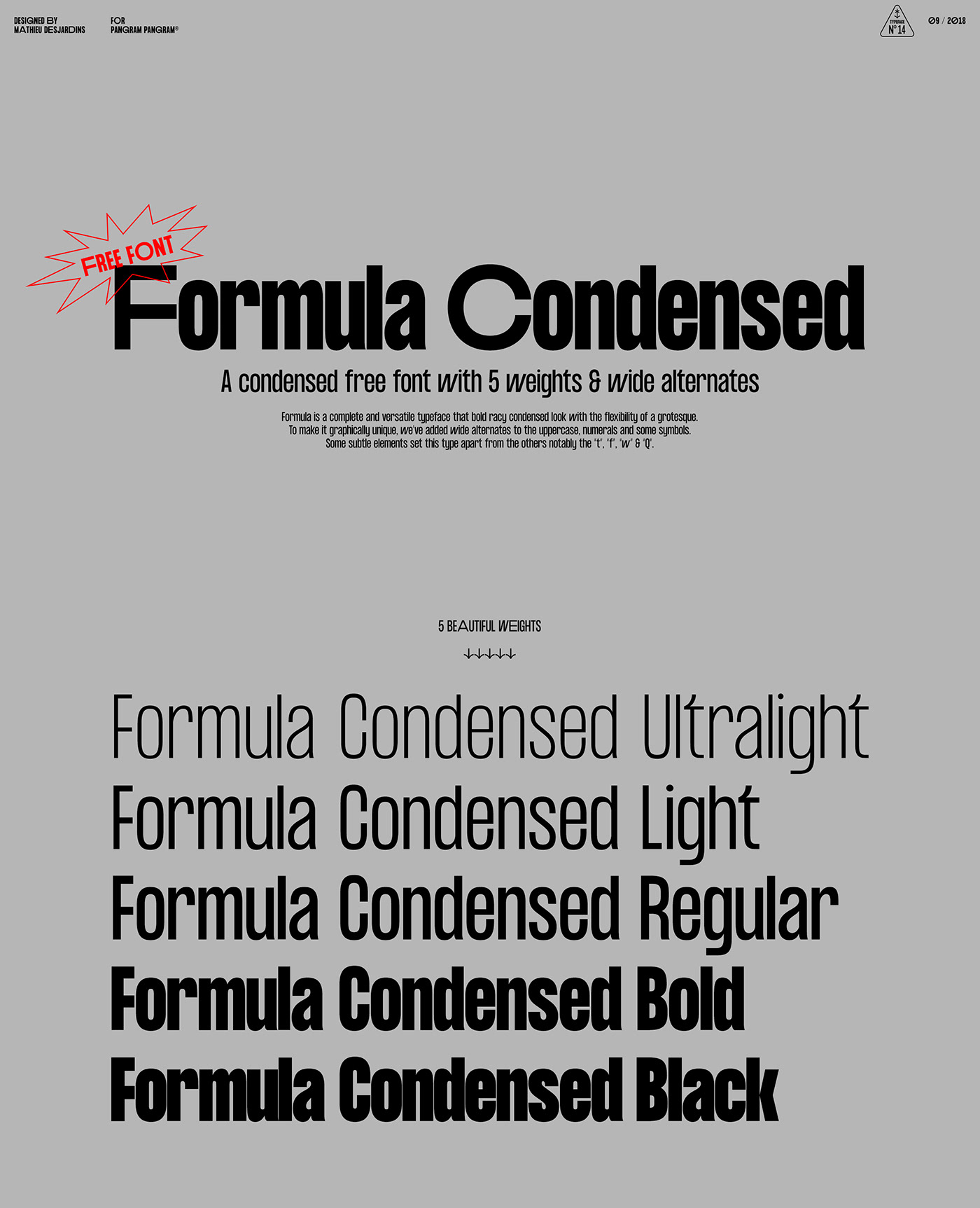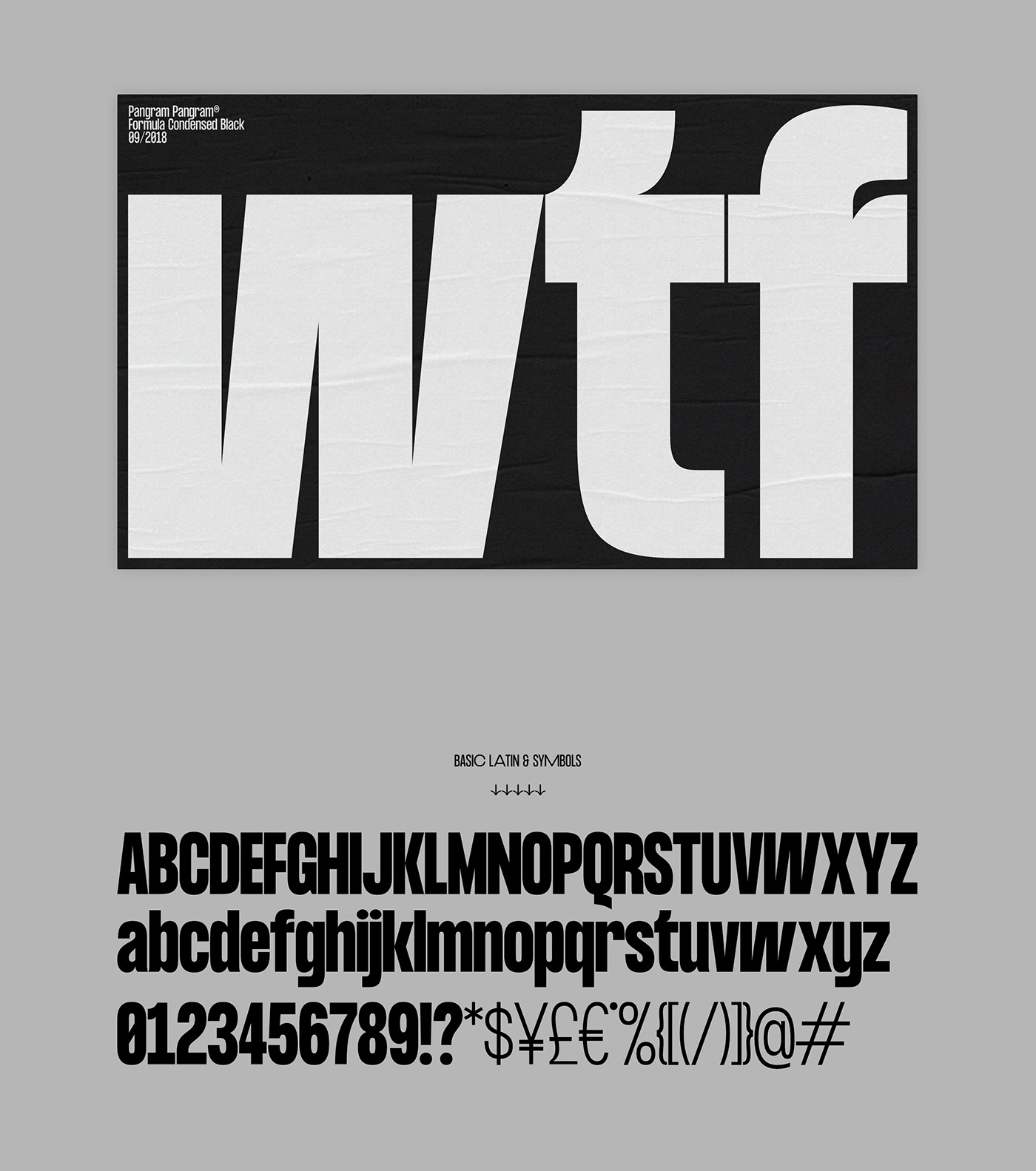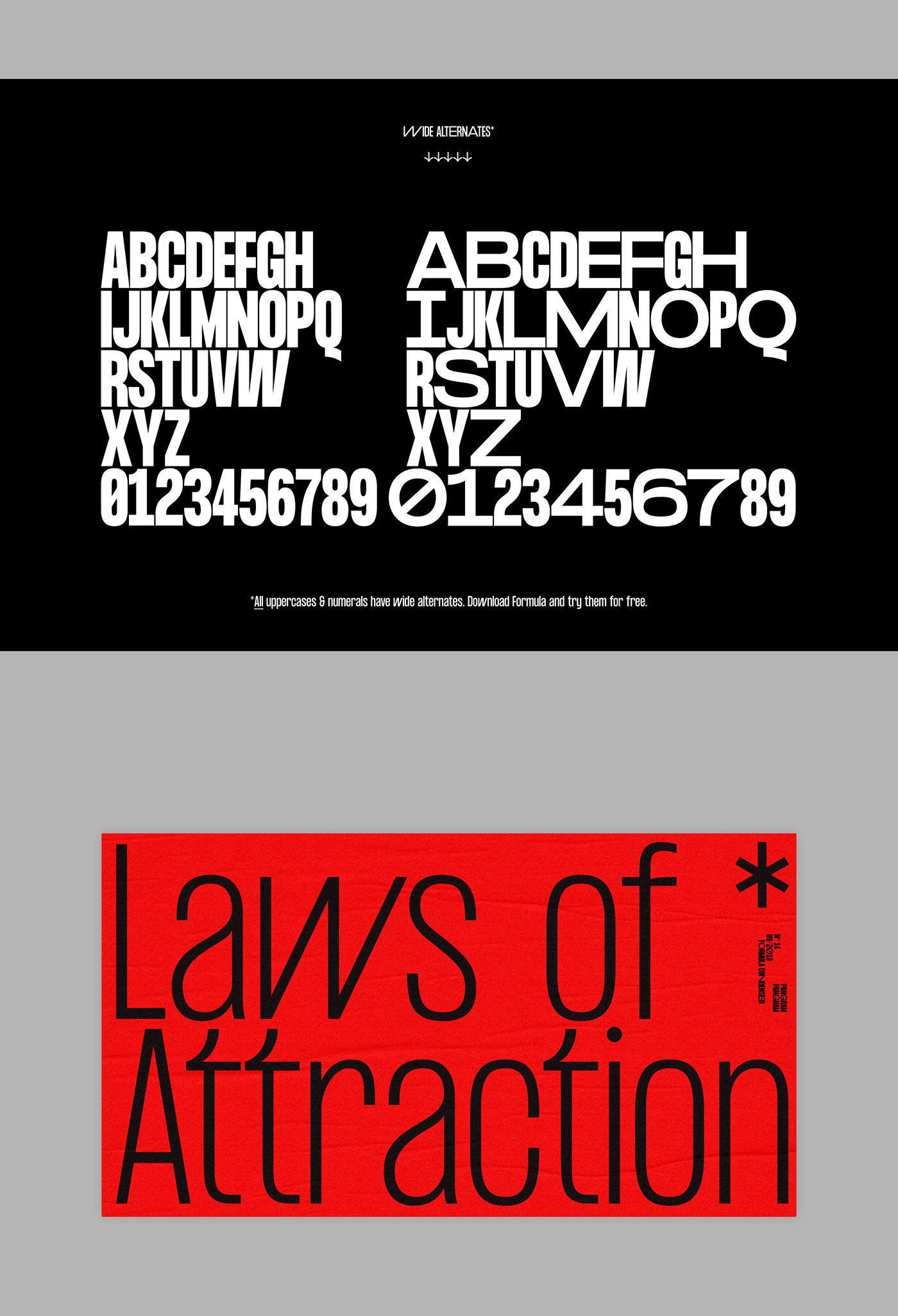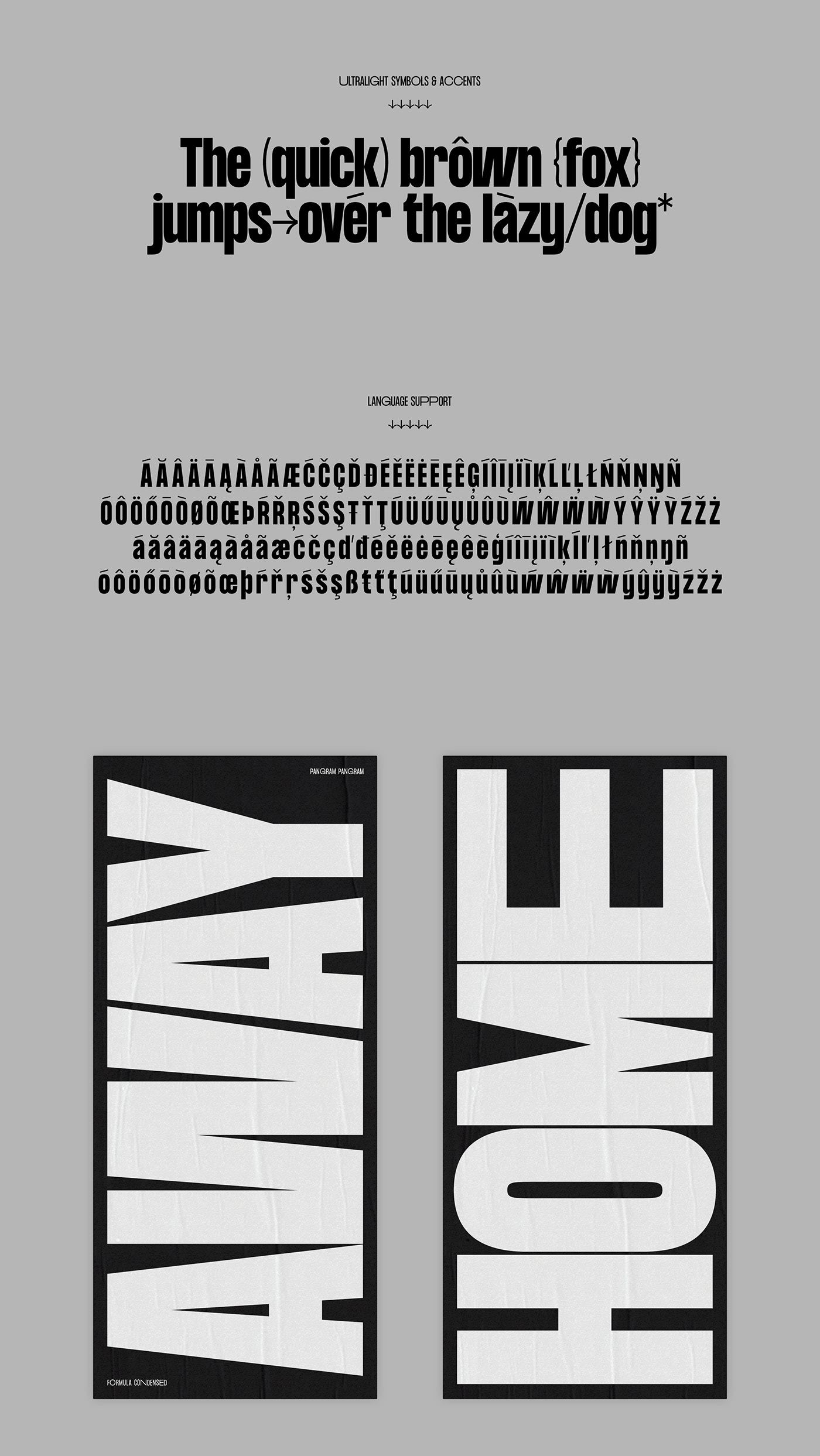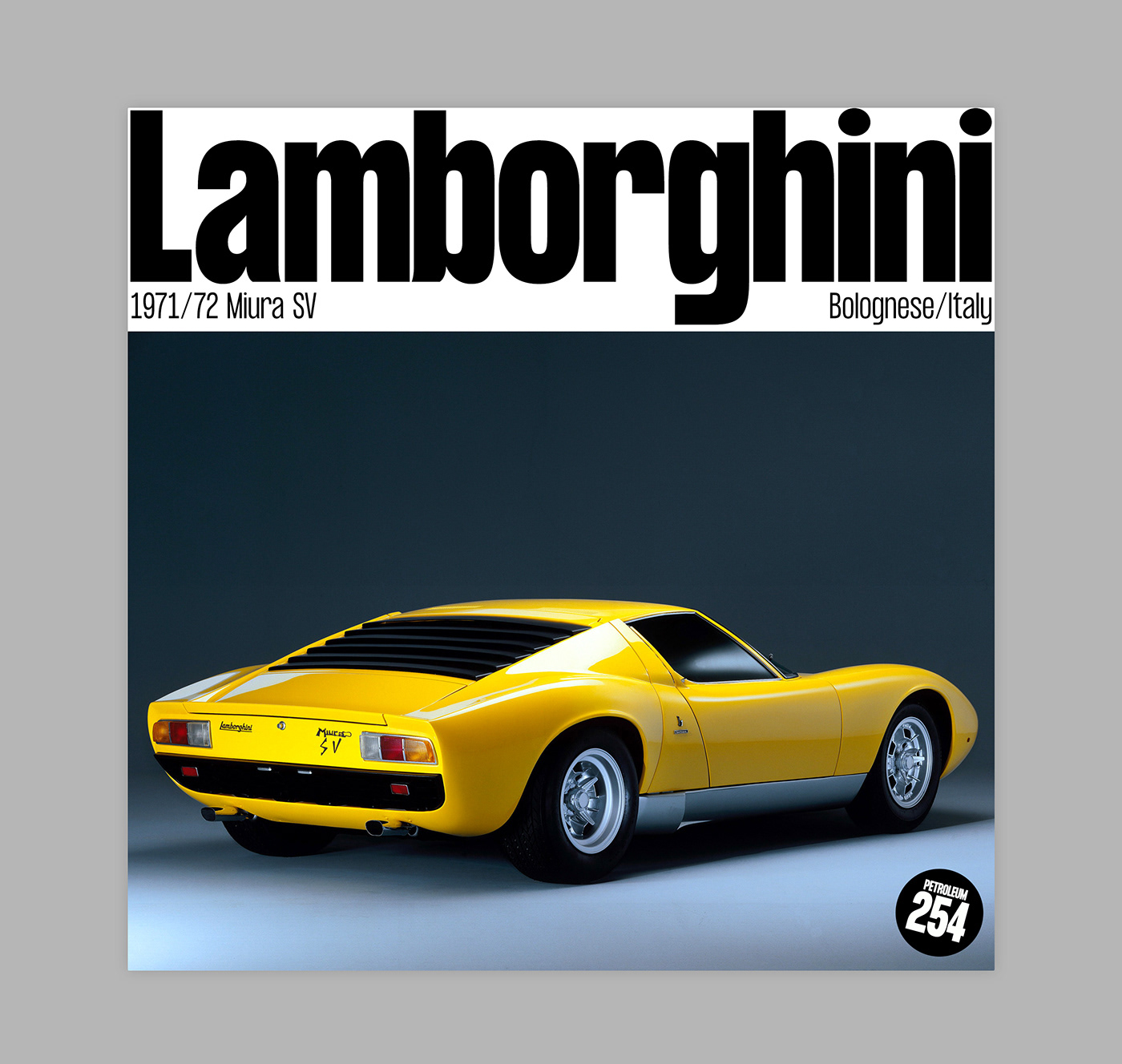
Formula Consensed Typeface
Formula is a complete and versatile typeface that bold racy condensed look with the flexibility of a grotesque. To make it graphically unique, we’ve added wide alternates to the uppercase, numerals and some symbols. Some subtle elements set this type apart from the others notably the “t”, “f”, “w” & “Q”.
Designer Name: | Mathieu Desjardins |